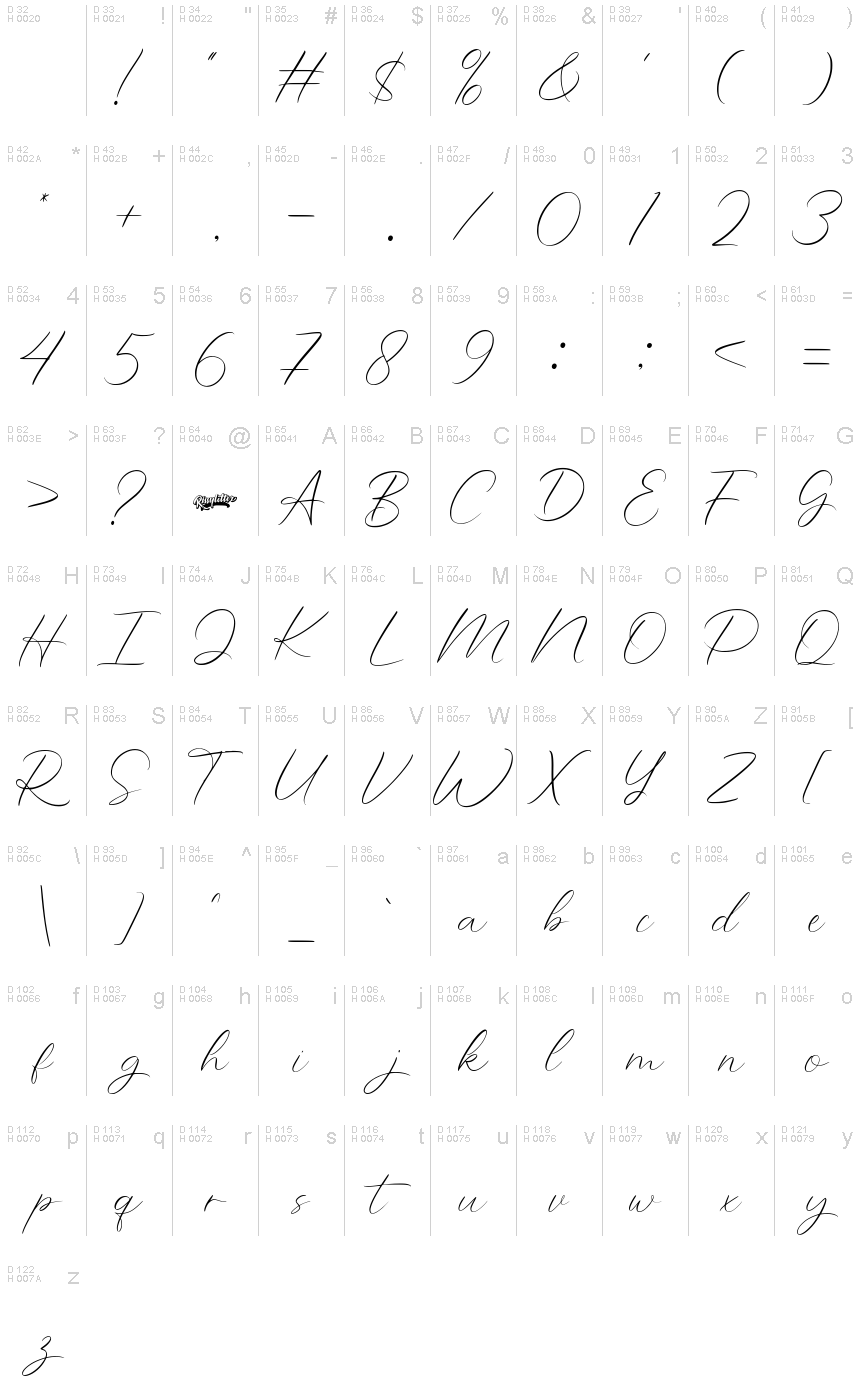
Wonderful Feather
Wonderful Feather, a captivating handwritten signature font designed by Rissyletter Studio, exudes a sense of elegance and sophistication. This light, flowing script emanates a warm, personal touch, effortlessly conveying a touch of whimsy and charm. The fluid, expressive strokes and delicate flourishes lend an air of artistry and individuality, making this font a compelling choice for a variety of design applications.
The versatility of Wonderful Feather shines through, making it a suitable choice for various projects. Its signature-inspired style lends itself well to branding and marketing materials, adding a personal touch to logos, invitations, and stationery. Furthermore, the font's lightness and graceful aesthetic make it a fitting selection for editorial, packaging, and digital design work, where a touch of refined elegance is desired.